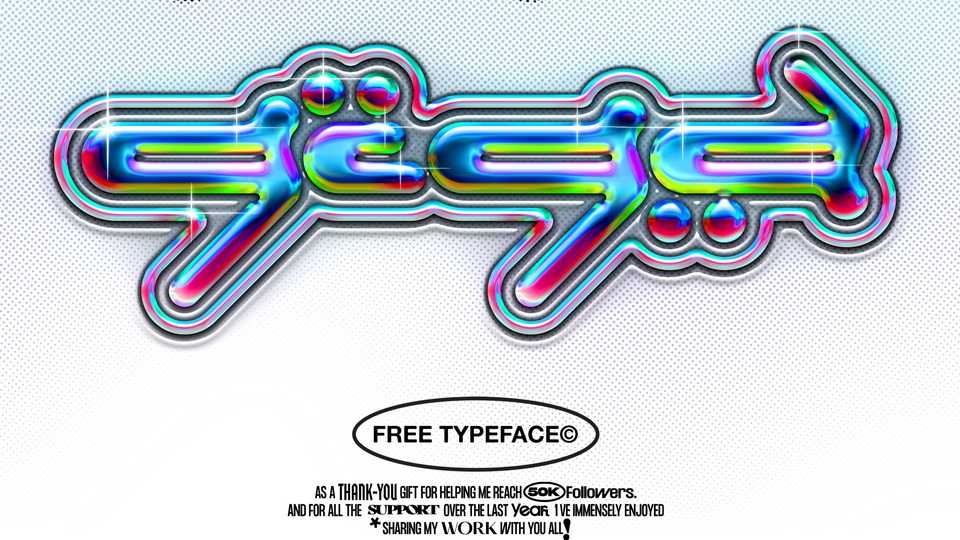
Download Giga font, a retro-futuristic sci-fi typeface inspired by y2k aesthetic. Giga font is perfect for a variety of logos, 3D and motion graphics.
Designer: Hvnter